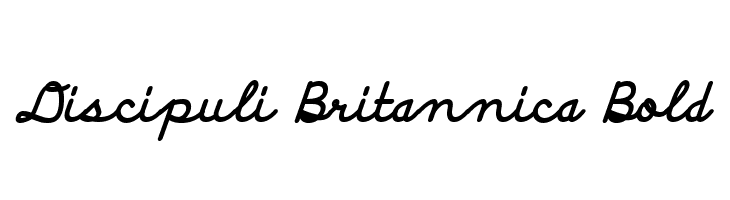
An elegant, flowing script font with connected characters and medium contrast.
A graceful script font with fluid, interconnected strokes and a cursive style.
A bold, cursive font with smooth, flowing lines and connected letters.
A bold, cursive font with a playful and energetic style.
A bold, cursive script with interconnected letters and a lively, handwritten style.
An elegant, flowing script font with smooth, connected strokes.